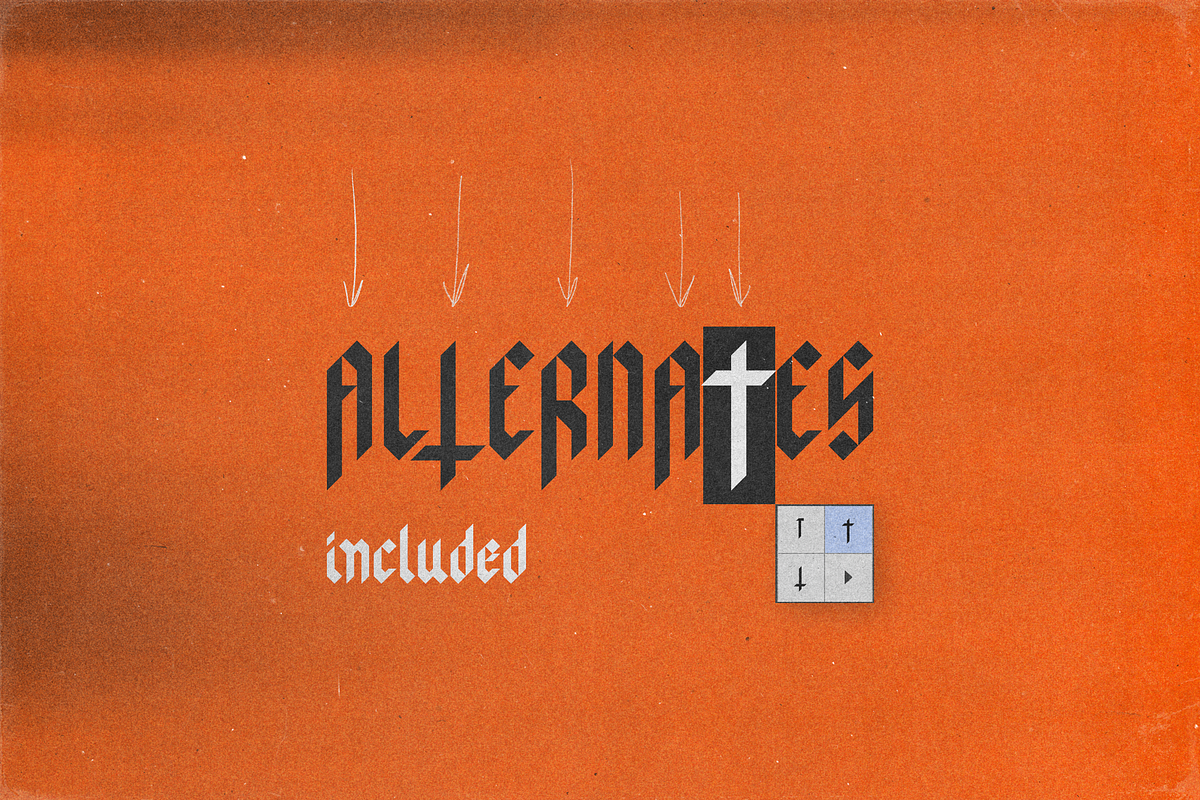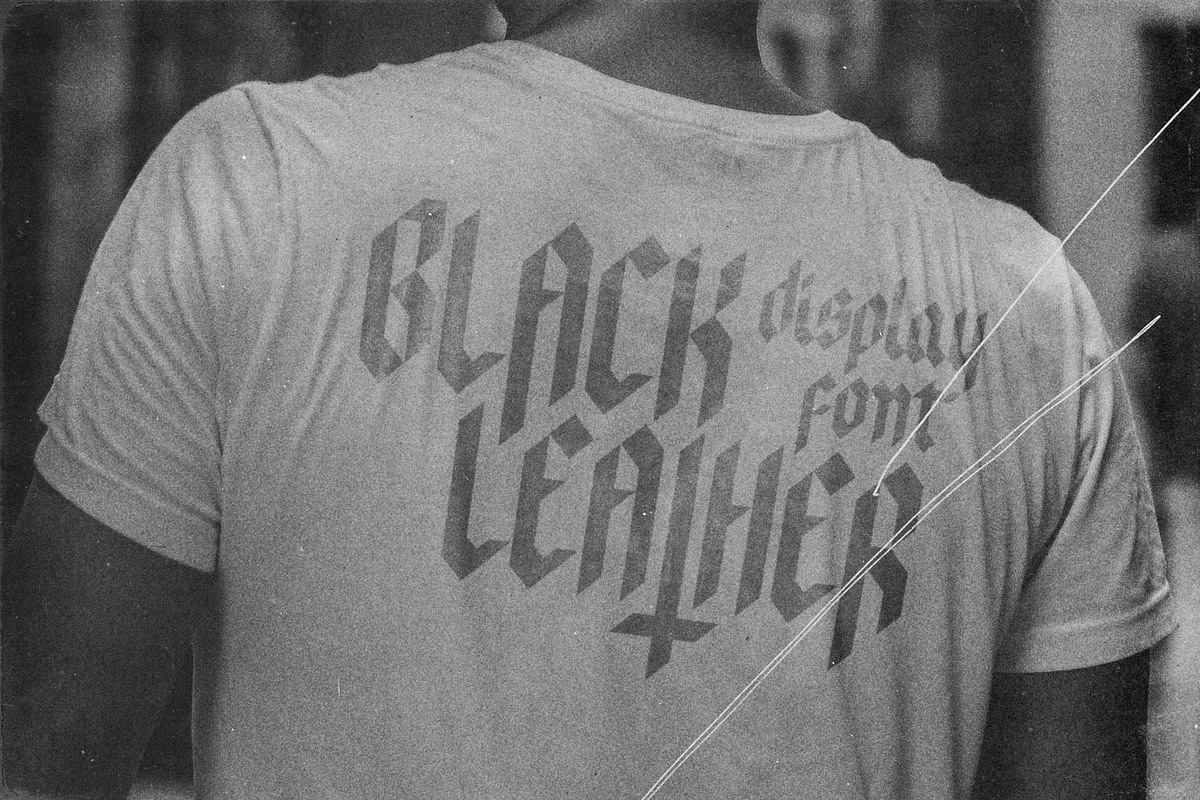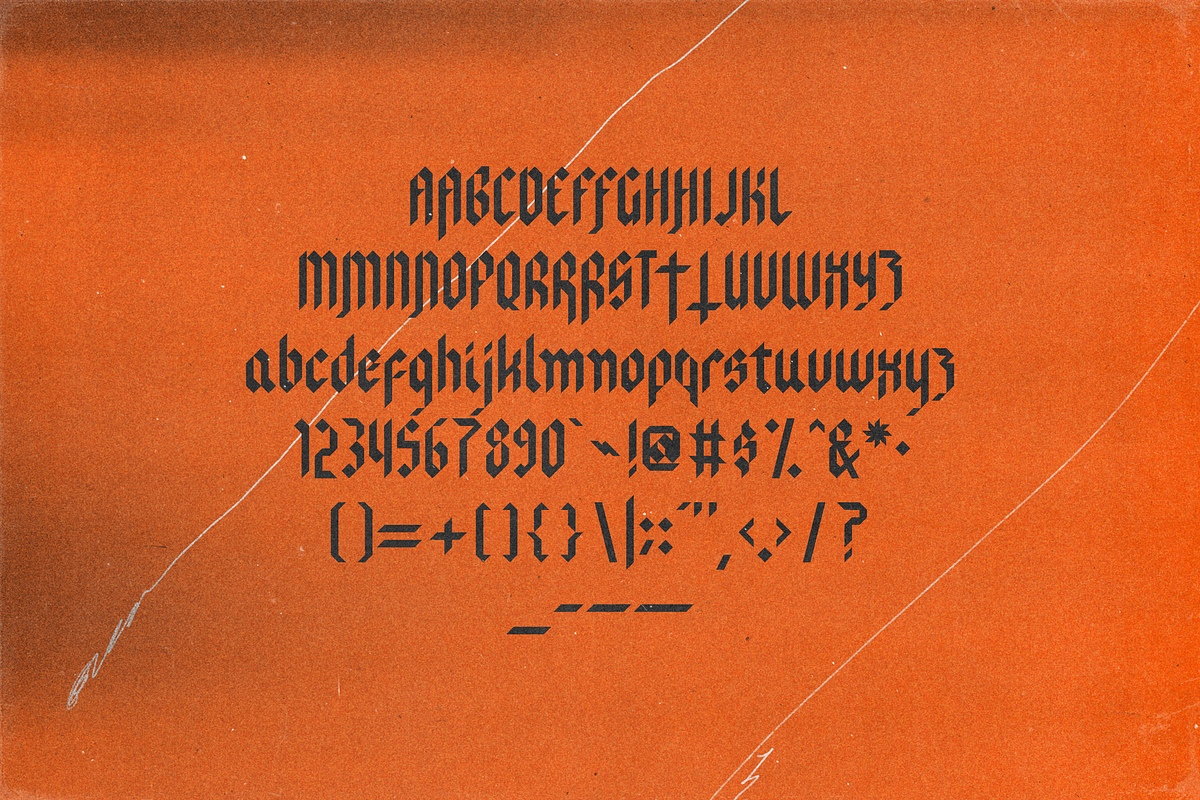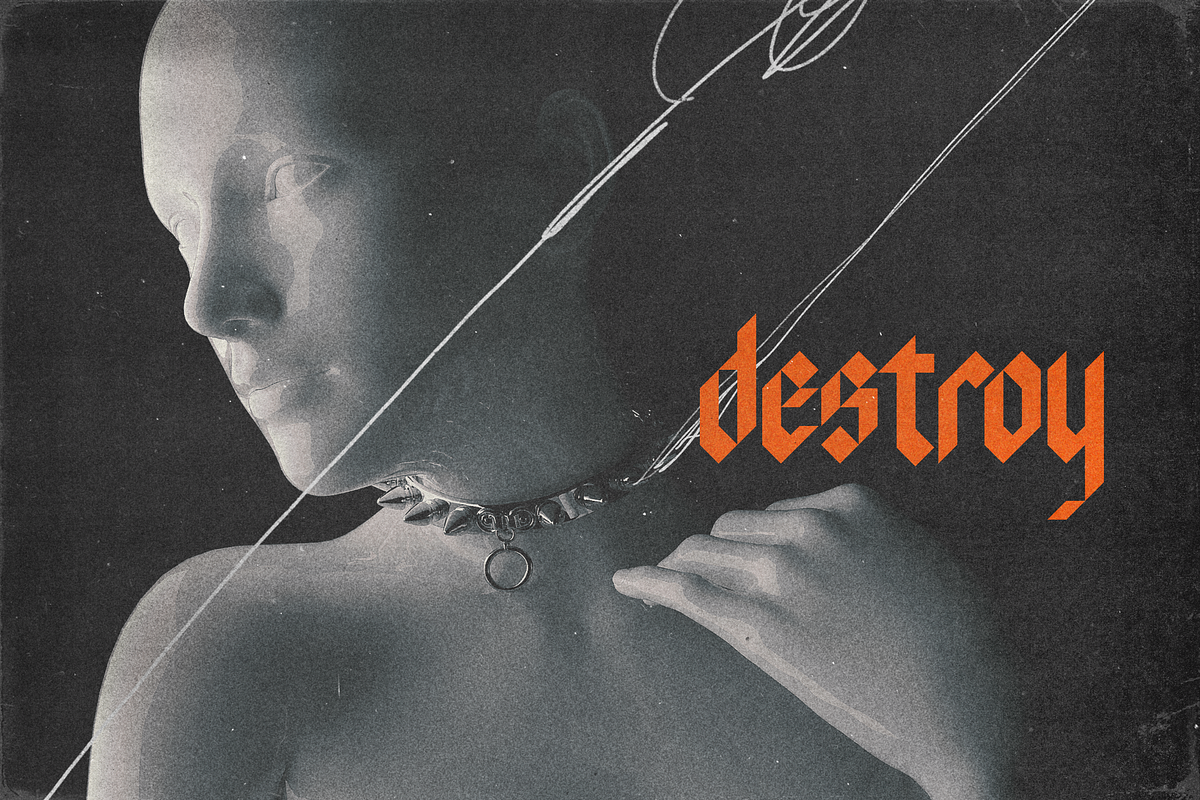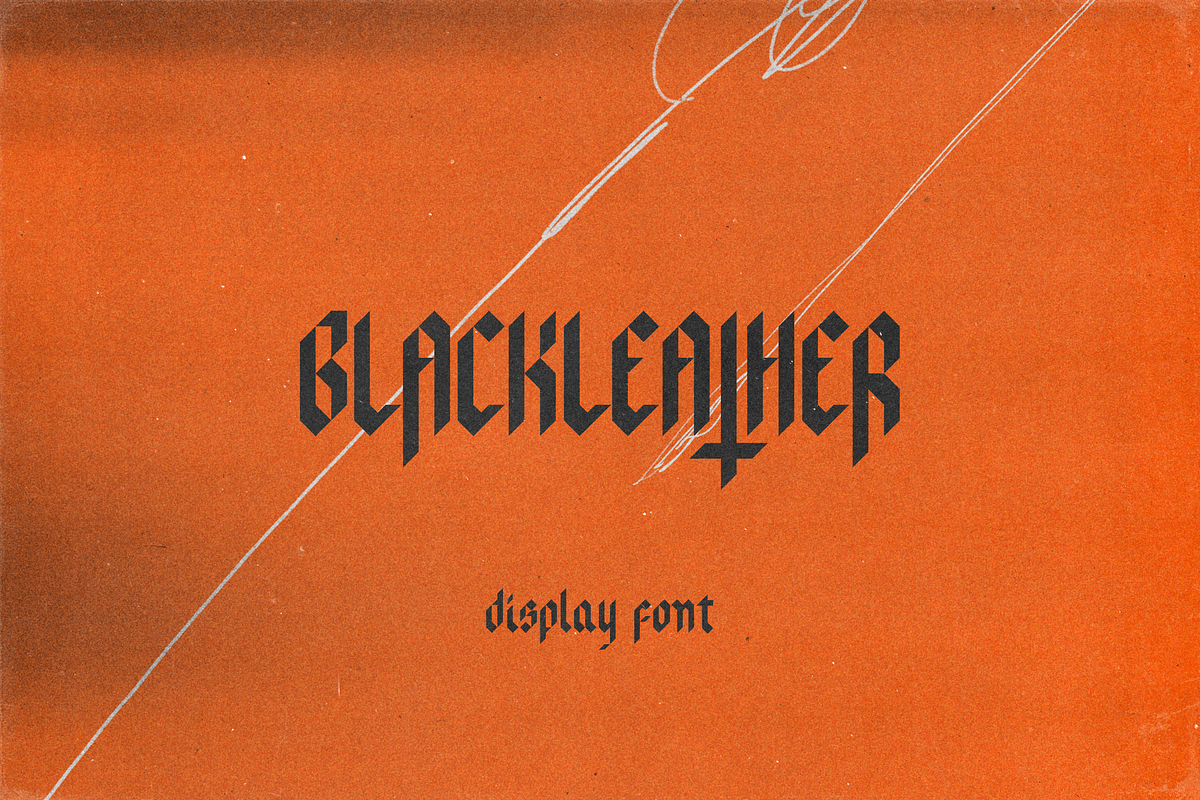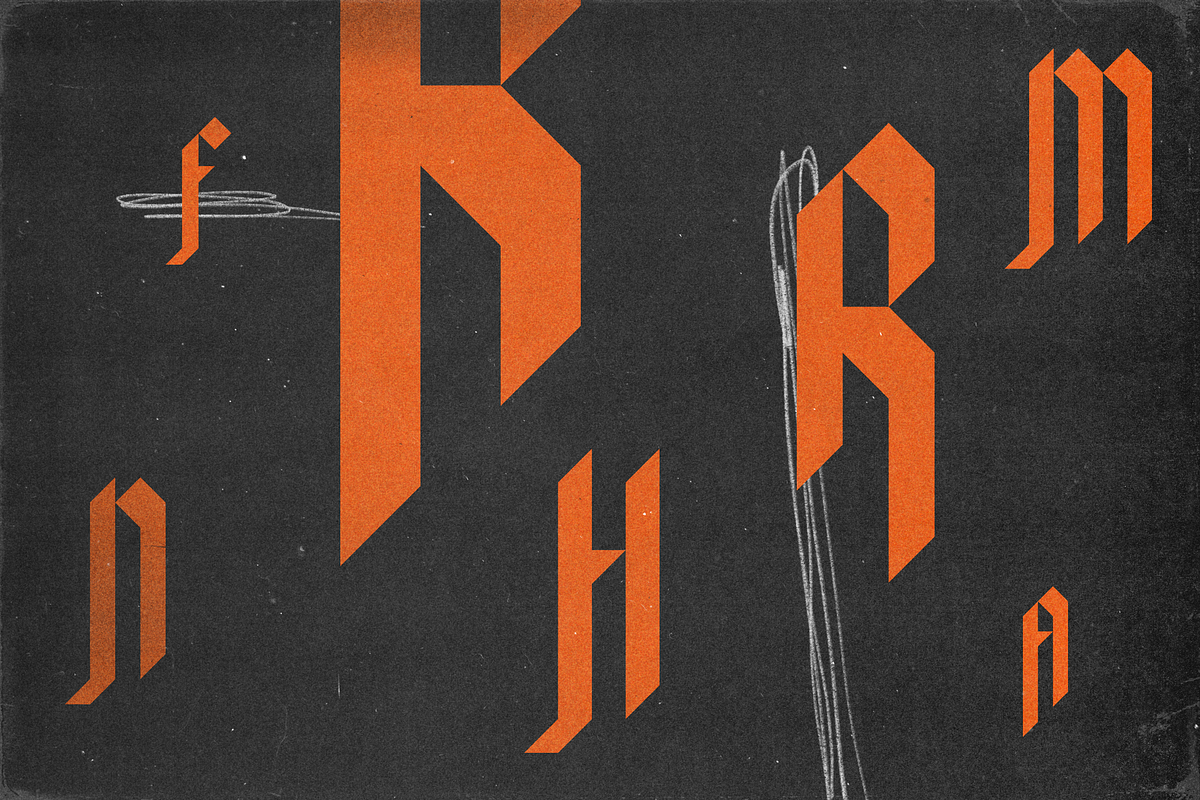
Blackleather – Display Typeface
Blackleather is a gothic display typeface best for dark and moody vibes. Included are full sets of upper and lowercase letters, numbers, symbols and bonus alternate characters for select letters. Blackleather is designed in a classic blackletter style with sharp, clean 90º/45º lines for the highest quality output possible.